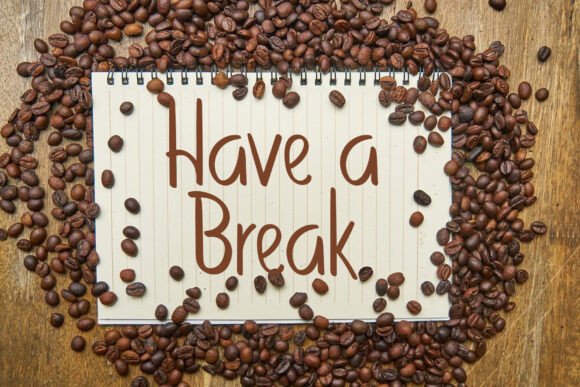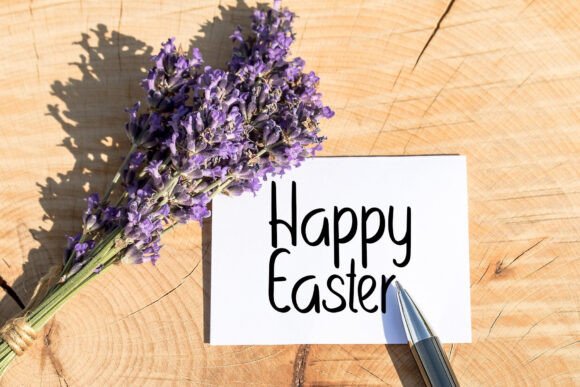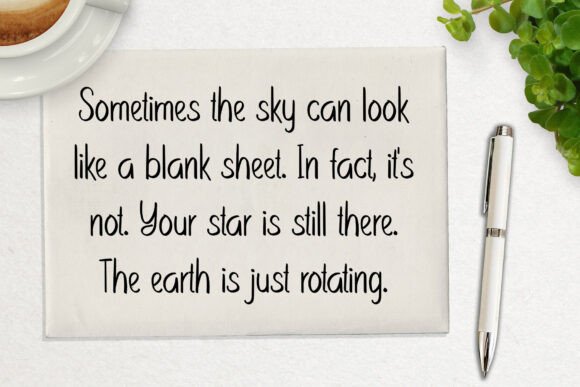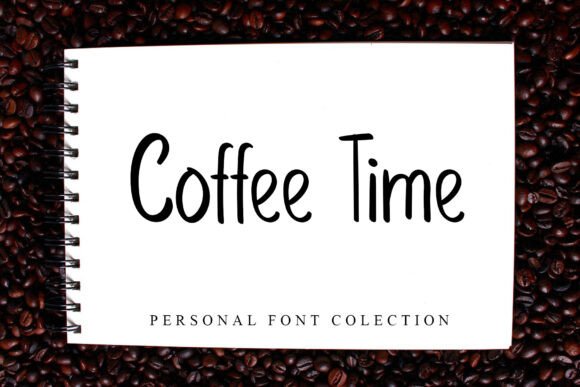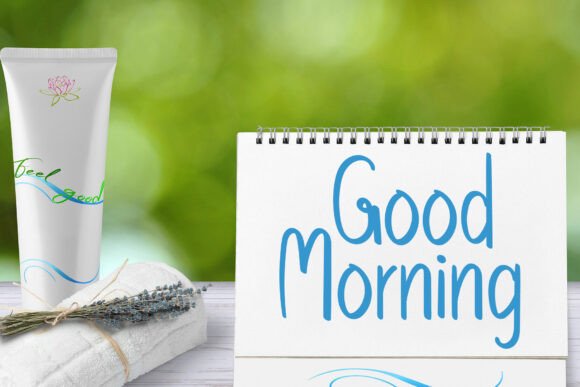
Coffee Lover Font: Elevate Your Designs with a Unique and Elegant Touch
Are you a designer or crafter looking for a font that can add a touch of elegance and sophistication to your creations? Look no further than the Coffee Lover Font. This beautiful, handwritten font is perfect for a variety of design projects, from wedding invitations and greeting cards to billboards, logos, and business cards.
A Unique and Elegant Font
The Coffee Lover Font is a one-of-a-kind font that features a varied baseline, giving it a natural, hand-made touch. This unique characteristic makes it perfect for designs that require a personal and elegant feel. The font’s elegant lines and curves will add a touch of sophistication to any design, making it ideal for projects that require a high level of creativity and style.
The Coffee Lover Font is versatile and can be used for a wide range of design projects. Here are some ideas to get you started:
- Wedding Invitations: Add a touch of elegance to your wedding invitations with the Coffee Lover Font. Its unique and handwritten style will make your invitations stand out and set the tone for your special day.
- Greeting Cards: Create beautiful and personalized greeting cards for any occasion with the Coffee Lover Font. Its elegant lines and curves will make your cards look like they were made by hand.
- Billboards: Make a statement with your billboard design using the Coffee Lover Font. Its unique style will grab the attention of passersby and leave a lasting impression.
- Logos: Create a professional and elegant logo for your business with the Coffee Lover Font. Its sophisticated style will help you establish a strong brand identity.
- Business Cards: Stand out from the crowd with business cards designed using the Coffee Lover Font. Its unique and handwritten style will make your cards look more personal and memorable.
- Access a wide range of glyphs and swashes to add variety to your designs
- Easily customize your designs to fit your brand’s style and personality
- Create unique and personalized designs that stand out from the crowd
Why Choose the Coffee Lover Font?
Here are just a few reasons why the Coffee Lover Font is a great choice for designers and crafters:
- Unique and Elegant: The Coffee Lover Font is a one-of-a-kind font that adds a touch of elegance and sophistication to any design.
- Versatile: The font can be used for a wide range of design projects, from wedding invitations to billboards.
- High-Quality: The font is designed with high-quality and clarity in mind, ensuring that your designs look professional and polished.
If you’re looking for a unique and elegant font to elevate your designs, look no further than the Coffee Lover Font. Its natural, hand-made touch and varied baseline make it perfect for designs that require a personal and sophisticated feel. With its PUA encoding and high-quality design, the Coffee Lover Font is a great choice for designers and crafters who want to create stunning creations that stand out from the crowd.